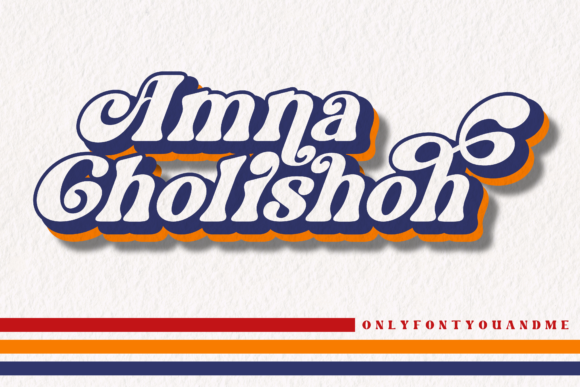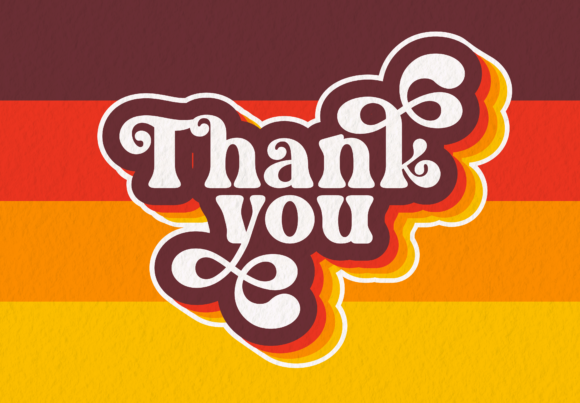
The Skylar is a retro and bold display font. This font is PUA encoded which means you can access all of the glyphs and alternates with ease! It would look great on headlines, magazines, logos, branding and so much more!